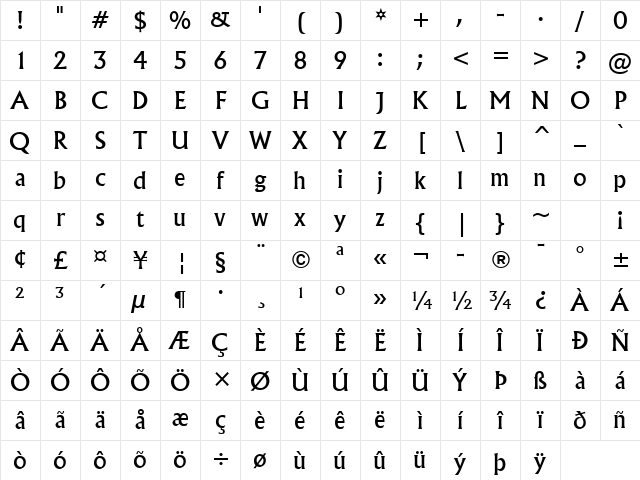
Flareserif821 BT Roman
Design Context for Flareserif821 BT
Flareserif821 BT carries the refined structure of traditional serif typography, with bracketed terminals and considered proportions that communicate credibility and craft.
Pro Tip: Use Flareserif821 BT for editorial body copy and considered headline work. Pair with a neutral sans for UI elements or captions to create a classic hierarchy.